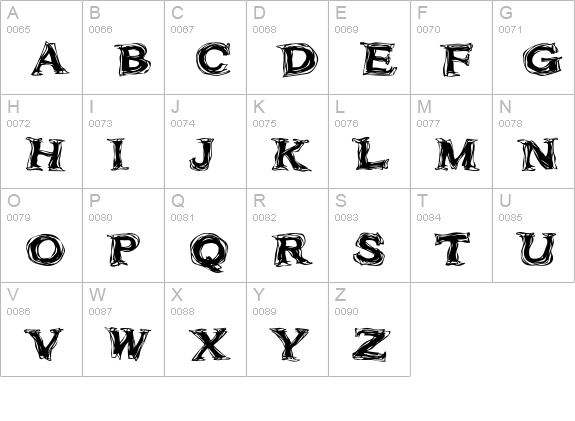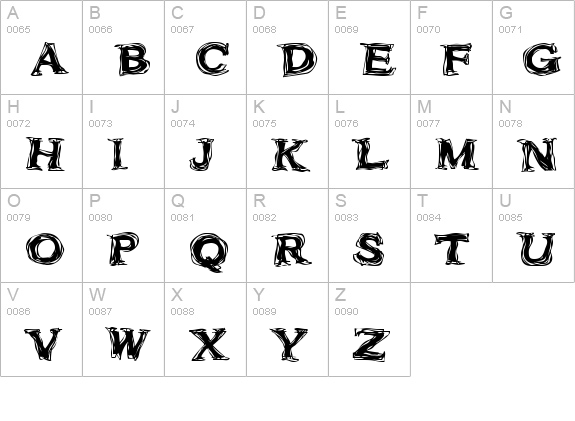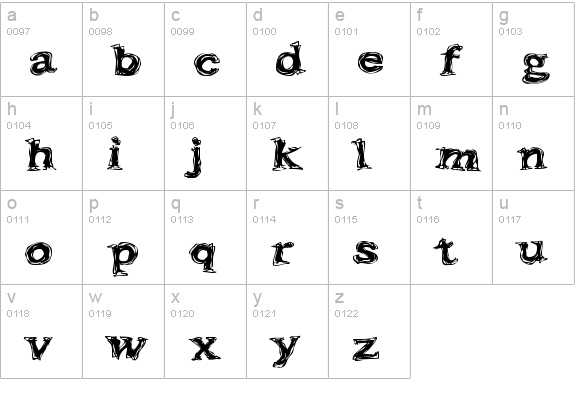
Frazzle Font Details
The Frazzle font is a whimsical and playful typeface that exudes a sense of fun and excitement. Its unique design features quirky curls and uneven lines that give it a charmingly disheveled appearance. Frazzle is perfect for adding a touch of spontaneity and creativity to your designs. Best of all, the Frazzle font is available for free download at FontsMarket.com! Simply visit the website to access this delightful font and unleash your creativity without any cost. Whether you're designing posters, invitations, or social media graphics, Frazzle is sure to add a cheerful and energetic vibe to your projects. Download it today and let your imagination run wild with this free-spirited font!